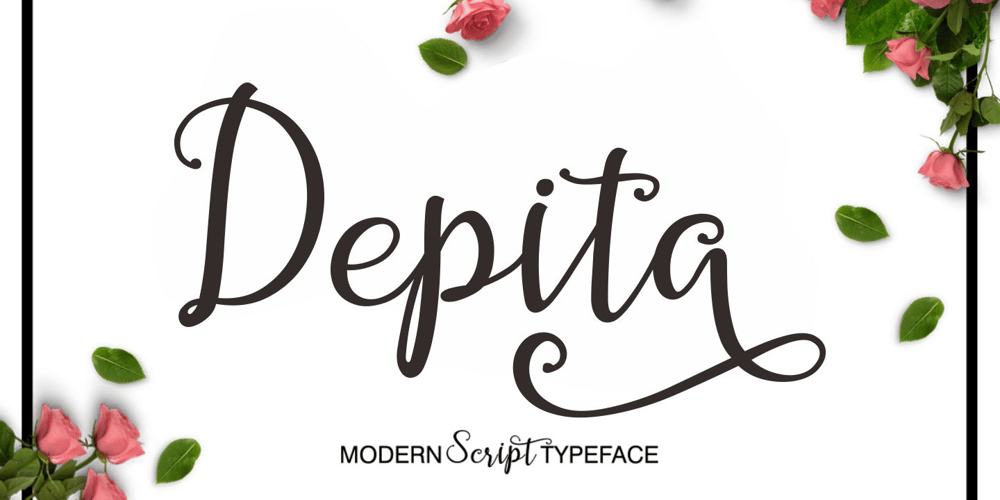
Depita Script Font Family was designed by Fajriadi Fajriadi, Fajriadi and published by Masinong Studio. Depita Script contains 1 styles and family package options. IntroducingDepina Script a new fresh & modern script with a handmade calligraphy style, decorative characters and a dancing baseline! So beautiful on invitation like greeting cards, branding materials, business cards, quotes, posters, and more!!Depina Script come with 577 glyphs. The alternative characters were divided into several Open Type features such as Swash, Stylistic Sets, Stylistic Alternates, Contextual Alternates, and Ligature. The Open Type features can be accessed by using Open Type savvy programs such as Adobe Illustrator, Adobe InDesign, Adobe Photoshop Corel Draw X version, And Microsoft Word. And this Font has given PUA unicode (specially coded fonts). so that all the alternate characters can easily be accessed in full by a craftsman or designer.Barbara Script Features :Uppercase & Lowercase International Languange & Symbols Support Punctuation & Number PUA Unicode Range Standard Ligatures Discretionary Ligatures Stylistic Alternates Stylistic Set 1-35 Character Variant Contextual Swash Bonus .Thank You for purchase!